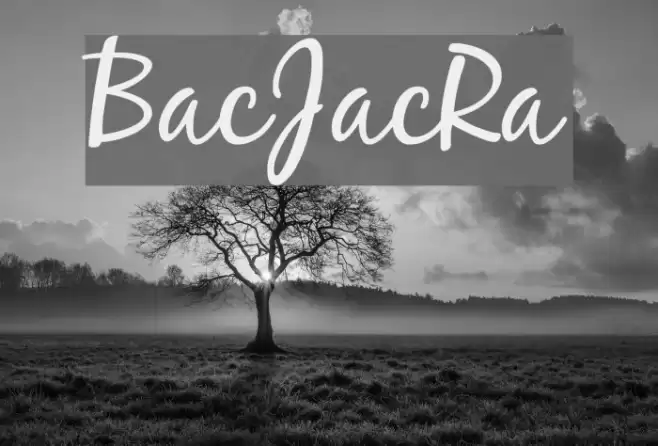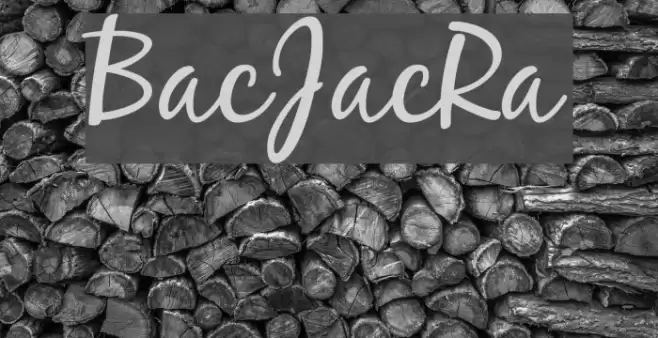
This font exudes a casual and playful handwritten style, characterized by its fluid and connected letterforms. The strokes are smooth and slightly varied in thickness, giving it a dynamic and lively appearance. The uppercase letters are bold and prominent, while the lowercase letters maintain a consistent flow, enhancing readability. The numerals and special characters are crafted with the same attention to detail, ensuring a cohesive look across all text. This font's informal yet elegant style makes it versatile for various design applications.
A casual, playful handwritten font with fluid, connected letterforms from Handwritten fonts.
- Proposed Projects: Ideal for greeting cards, invitations, personal branding, and creative projects that require a touch of personality.
- Overall Style: Casual, Playful
- Use Case: Headlines, Logos, Invitations